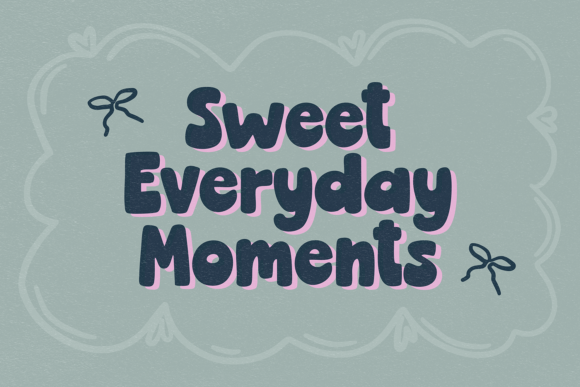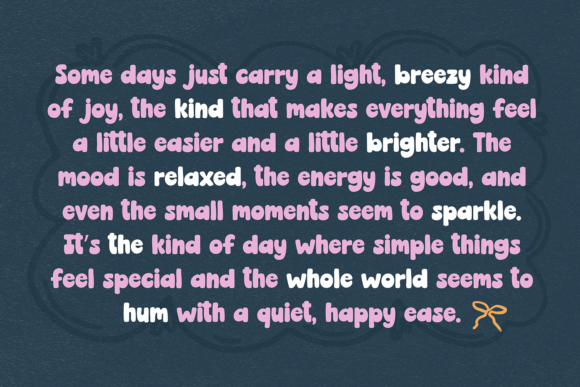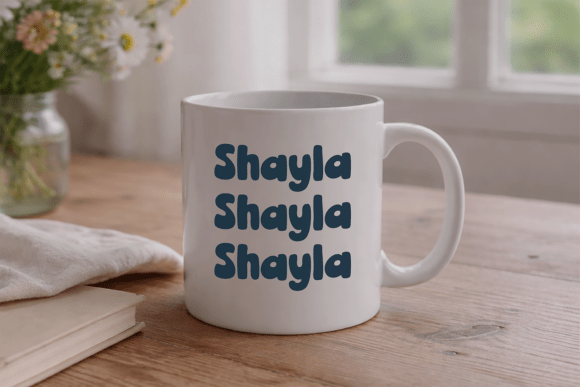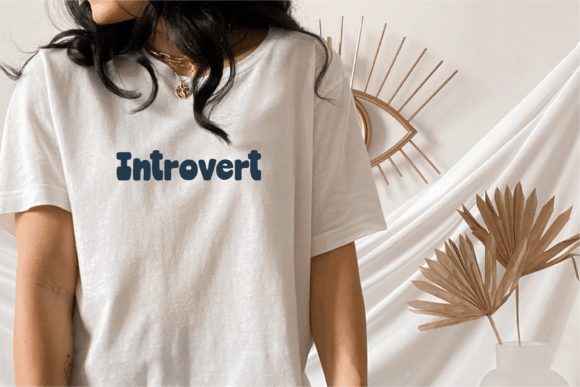
Introducing Delightful Font: The Perfect Blend of Retro Charm and Modern Flair
Are you tired of using the same old fonts for your social media posts and Cricut designs? Look no further! We’re excited to introduce Delightful Font, a bold and chunky font that’s sure to add a captivating twist to your visual displays. With its unique retro charm and modern flair, this font is the perfect ingredient for taking your designs to the next level.
The Retro Revival
Delightful Font is a masterful blend of vintage and modern elements, evoking a sense of nostalgia and playfulness. Its chunky letters and bold lines are reminiscent of classic signage and advertisements from the past, while its clean and crisp design ensures it remains fresh and relevant today. Whether you’re a designer, crafter, or social media enthusiast, this font is sure to delight and inspire.
Unleash Your Creativity
With Delightful Font, the possibilities are endless! Use it to add a pop of personality to your social media posts, or to give your Cricut designs a bold and eye-catching makeover. This font is perfect for creating eye-catching headlines, titles, and captions that demand attention. Its unique charm and character are sure to make your designs stand out from the crowd and leave a lasting impression.
Key Features of Delightful Font
- Bold and Chunky Design: Delightful Font features bold and chunky letters that are sure to grab attention.
- Retro Charm: This font’s vintage-inspired design elements evoke a sense of nostalgia and playfulness.
- Modern Flair: Clean and crisp lines ensure Delightful Font remains fresh and relevant today.
- Highly Versatile: Use Delightful Font for social media posts, Cricut designs, and a wide range of other creative projects.
- Easy to Read: Despite its bold design, Delightful Font remains easy to read and understand.
Tips for Using Delightful Font
To get the most out of Delightful Font, try pairing it with complementary fonts and design elements. Use it to create visual hierarchy and emphasize key messages or calls-to-action. Experiment with different colors and textures to add depth and interest to your designs. And don’t be afraid to get creative and try new things – Delightful Font is designed to inspire and empower your creativity!
Delightful Font is a dream come true for designers and crafters looking to add a unique and captivating element to their work. Whether you’re creating custom vinyl decals, iron-on designs, or social media graphics, this font is sure to delight and inspire. Its bold and chunky design makes it perfect for a wide range of applications, from DIY projects to professional design work.
In conclusion, Delightful Font is a standout font that’s sure to add a captivating twist to your social media posts and Cricut designs. With its unique blend of retro charm and modern flair, this font is the perfect ingredient for taking your designs to the next level. So why wait? Download Delightful Font today and unleash your creativity!